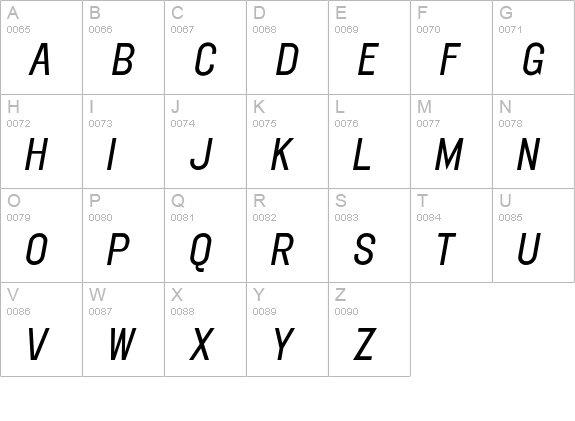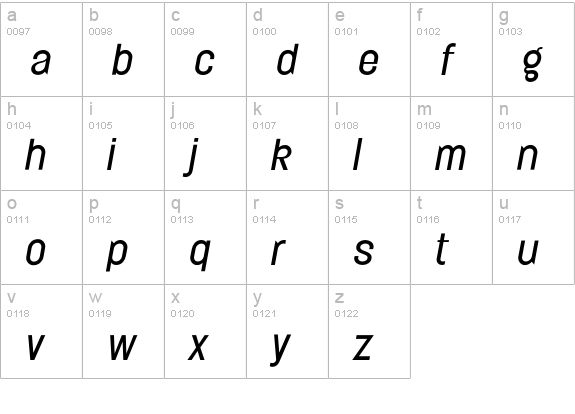
Elephant-LightOblique Font Details
Elephant-LightOblique font exudes elegance and sophistication with its sleek and modern design. The gentle slant of the characters adds a touch of uniqueness to any project, making it stand out effortlessly. The thin, light strokes give the font a delicate and refined appearance, perfect for conveying a sense of grace and style. This font is a versatile choice for a wide range of design projects, from branding and advertising to invitations and social media graphics. Its clarity and readability make it suitable for both print and digital applications, ensuring that your message is always conveyed with precision and impact. Best of all, Elephant-LightOblique font is available for free download at FontsMarket.com. This means you can easily access this stylish and sophisticated font to enhance your projects without any cost involved. Don't miss out on the opportunity to elevate your designs with this beautiful typeface.